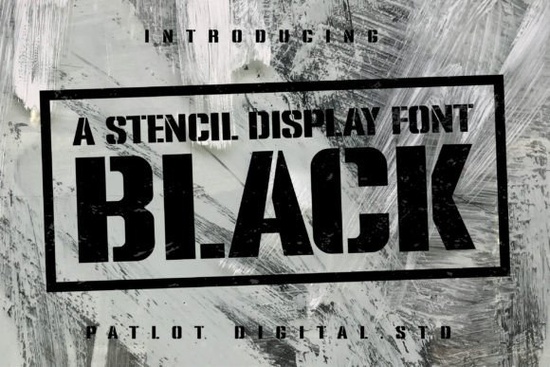
Looking for a bold, no-nonsense font that stands out without trying too hard? The Black Stencil Font delivers exactly that clean lines, a strong presence, and just the right amount of edge. Whether you're designing a t-shirt, branding a small business, or creating stationery with attitude, this font fits naturally into your workflow. It’s not flashy, but it makes a statement where it matters.
What Makes Black Stencil Stand Out?
Black Stencil isn’t just another bold font it’s built for impact. With two versions in the set (regular and grunge), you get flexibility without complexity. The regular style is crisp and clean, perfect for logos, headlines, or any design where clarity matters. The grunge version adds texture and character, giving your project a slightly worn, authentic feel ideal for vintage looks, streetwear, or edgy editorial work.
It works well across many formats: from digital graphics to print-on-demand items like mugs, posters, and apparel. Its stencil structure gives it a tactile quality, even on screen, which helps designs feel more physical and intentional.
Where You Can Use This Font
- Branding & Logos: Give your startup or creative business a memorable identity with a font that feels confident and grounded.
- T-Shirt Designs: Great for military-inspired themes, punk aesthetics, or anything with a rebellious vibe.
- Book Covers & Magazines: Add authority to titles in non-fiction, thriller, or political content.
- Stationery & Invitations: Use it for formal invites with an unexpected twist or for casual notes with a tough tone.
How to Get the Most From Black Stencil
Start by testing both versions side by side. Try the regular style for clean layouts and the grunge variant when you want a little grit. Pair it with neutral colors white, black, gray to keep focus on the text itself. Avoid using it in long paragraphs; its strength lies in headlines, short phrases, and visual emphasis.
You can also combine it with softer fonts for contrast try pairing it with a delicate script or minimalist sans-serif to balance the look. This creates visual rhythm and keeps your design from feeling overwhelming.
Why Designers Choose This Font
Final Tip: Test Before You Commit